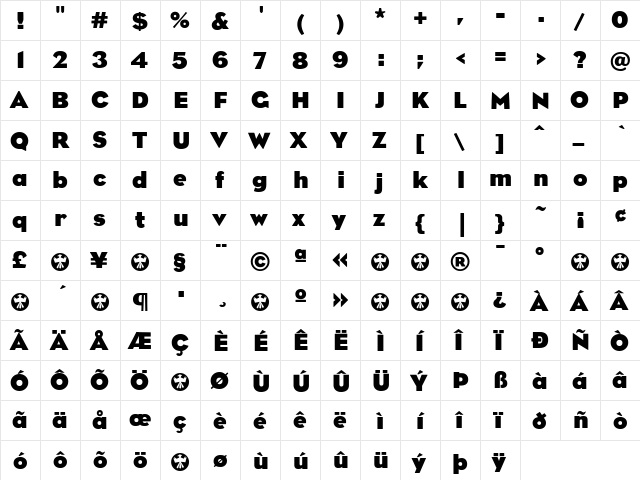
BureauEagleBold Regular
Design Context for BureauEagleBold Typeface
BureauEagleBold is a composed and adaptable typeface that performs quietly and consistently across a wide range of design contexts. Its bold stroke weight gives it real presence on the page.